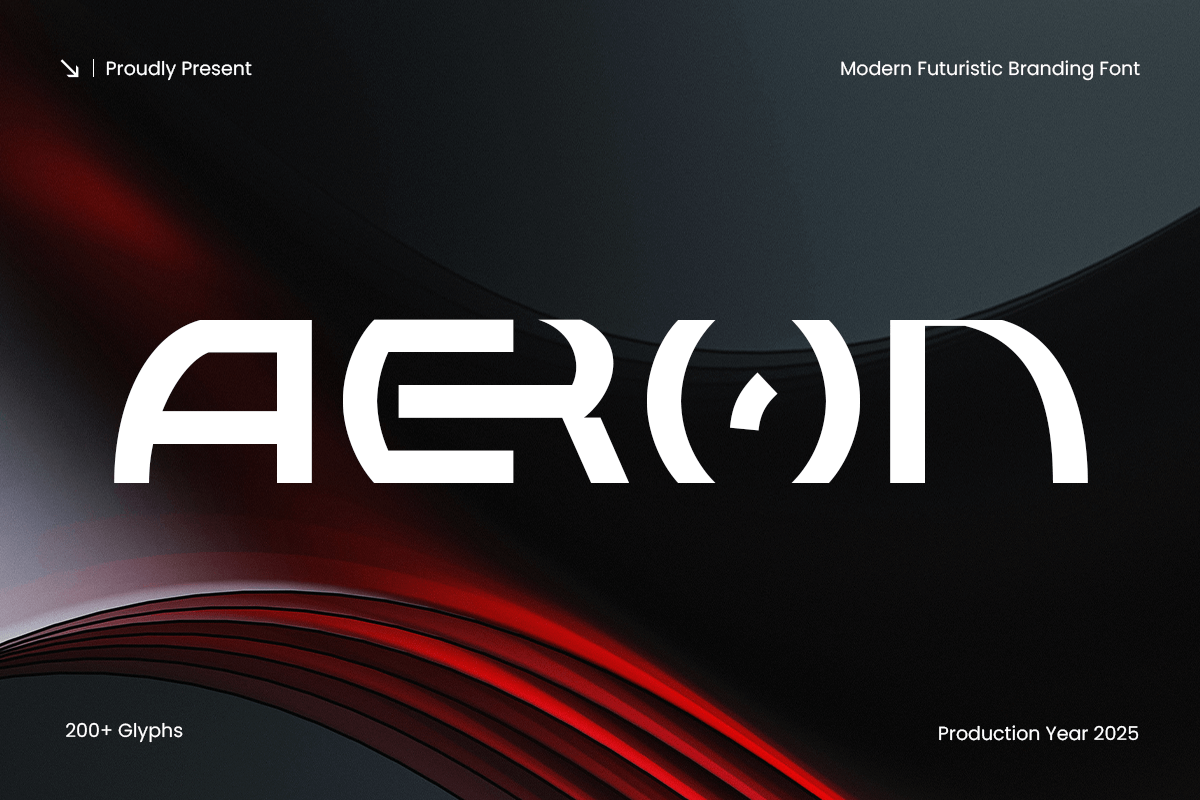
Aeron
-Modern Futuristic Branding FontAeron - Modern Futuristic Branding Font
AERON is a modern futuristic branding font designed for tech, digital, and contemporary creative projects. Ideal for logos, branding, posters, and UI/UX designs, it combines sleek geometric shapes with a cutting-edge futuristic aesthetic.
With precise and clean letterforms, AERON ensures readability and a bold, professional look across both print and digital media, making it perfect for tech startups and forward-thinking brands.
AERON – Modern Futuristic Branding Font Features
Sleek and futuristic character set
Perfect for branding, tech logos, and digital designs
OpenType features for extra versatility